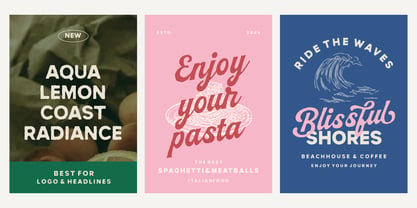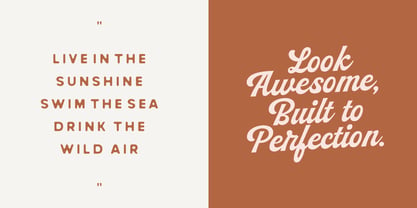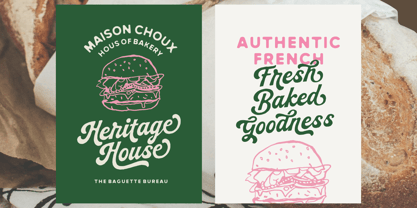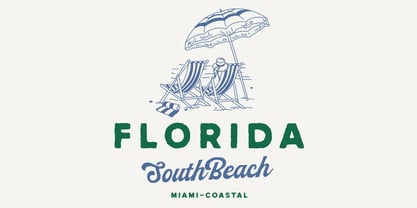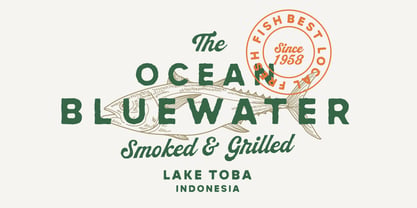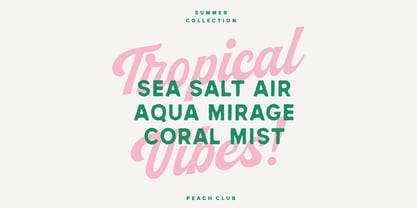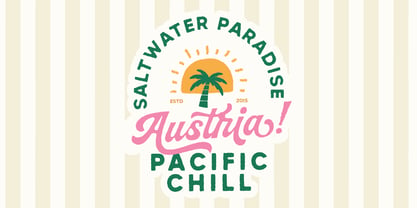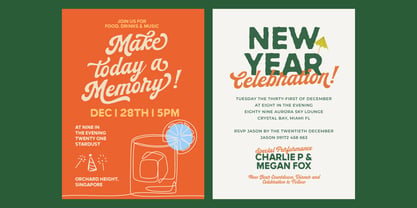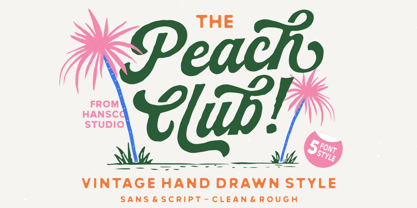
Peach Club Script
by HansCo
The Peach Club Script Font Family was designed by Burhan Afif and published by HansCo. Peach Club Script contains 10 styles and family package options. More about this family
Introducing a beautifully crafted Hand-Drawn Peach Club Font that combines the charm of classic script lettering with the clean versatility of a modern sans serif. The script font features natural strokes, smooth curves, and authentic hand-drawn imperfections, giving your designs a warm, nostalgic personality. Perfect for logos, branding, packaging, and vintage-inspired artwork. Paired with a complementary sans serif, this bundle ensures readability and flexibility, making it ideal for layouts, headlines, and supporting text.